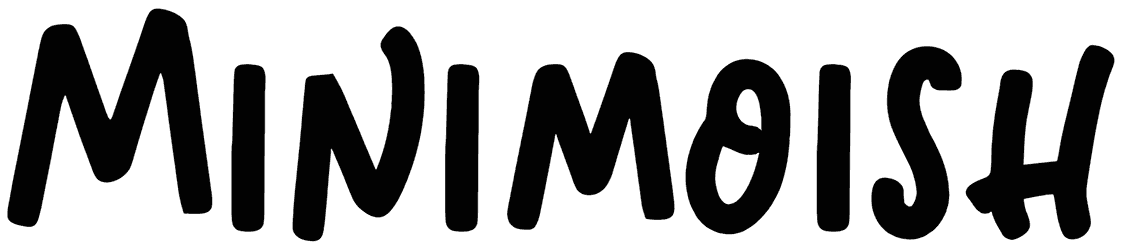
Minimoish Font
What can be more amusing than a setup with pretty and cute words? As a comic font, Minimoish with a cartoon face is an astonishing rise for your designs, including game screens, posters, stickers, posters, and the like.